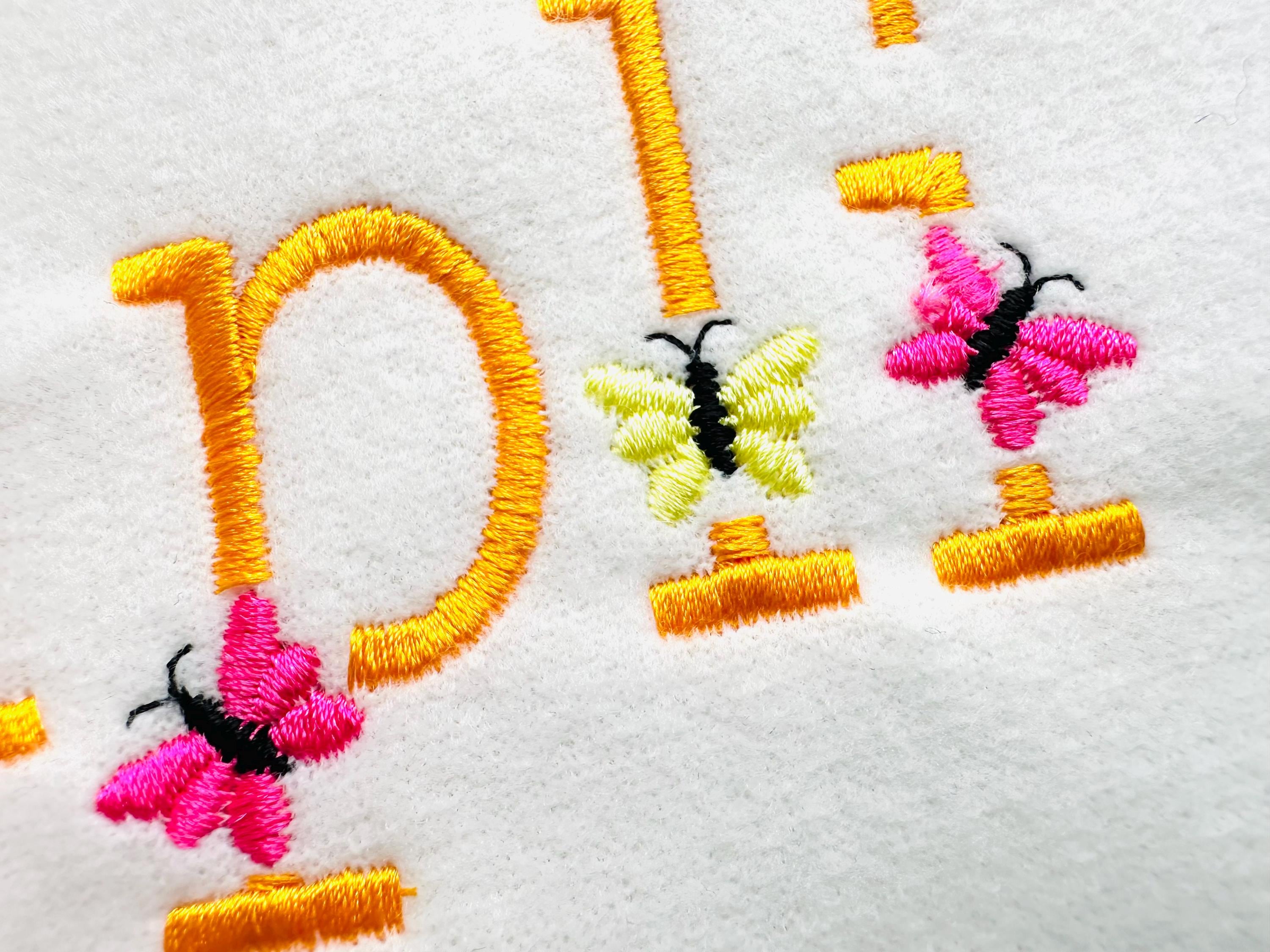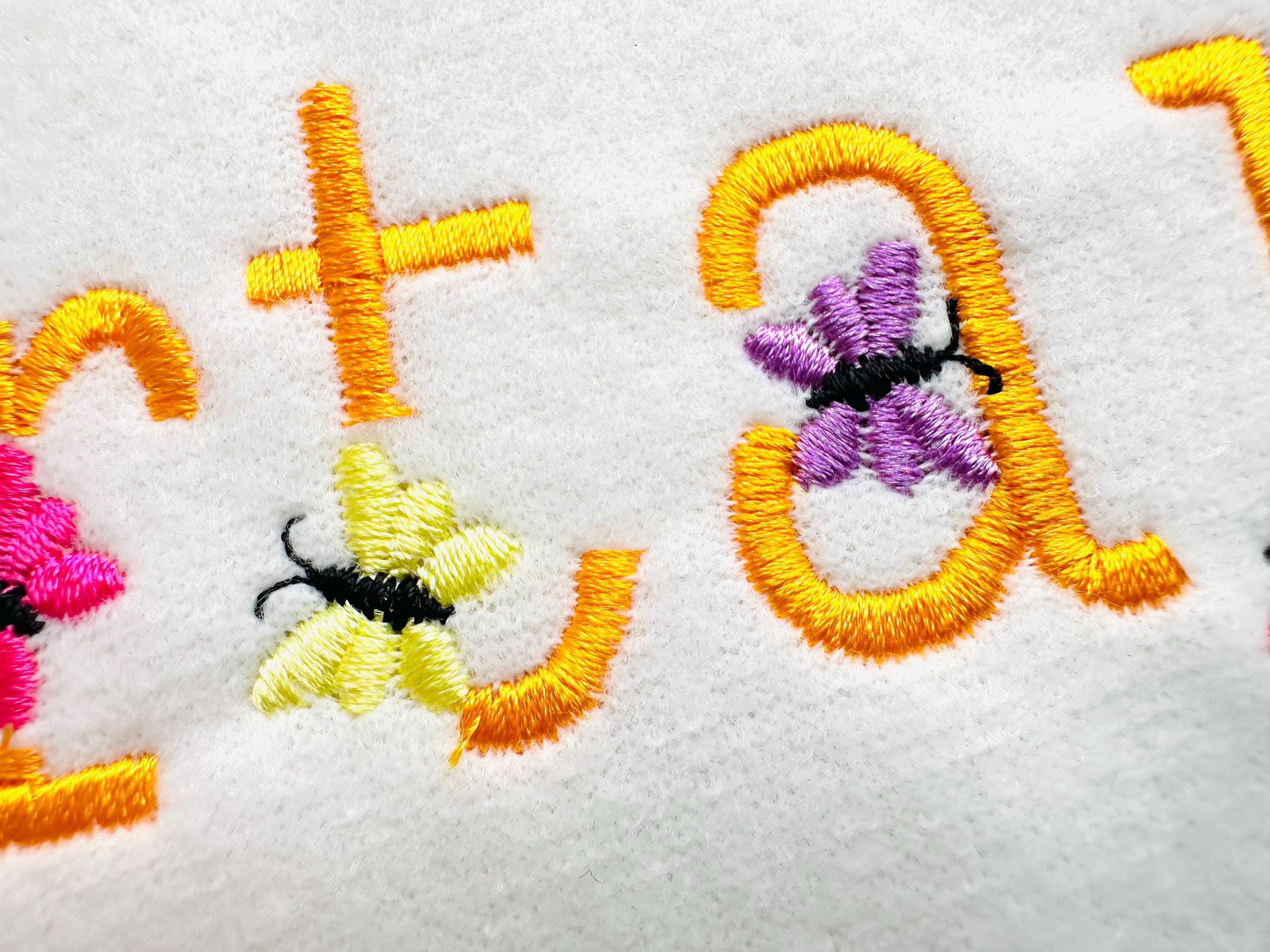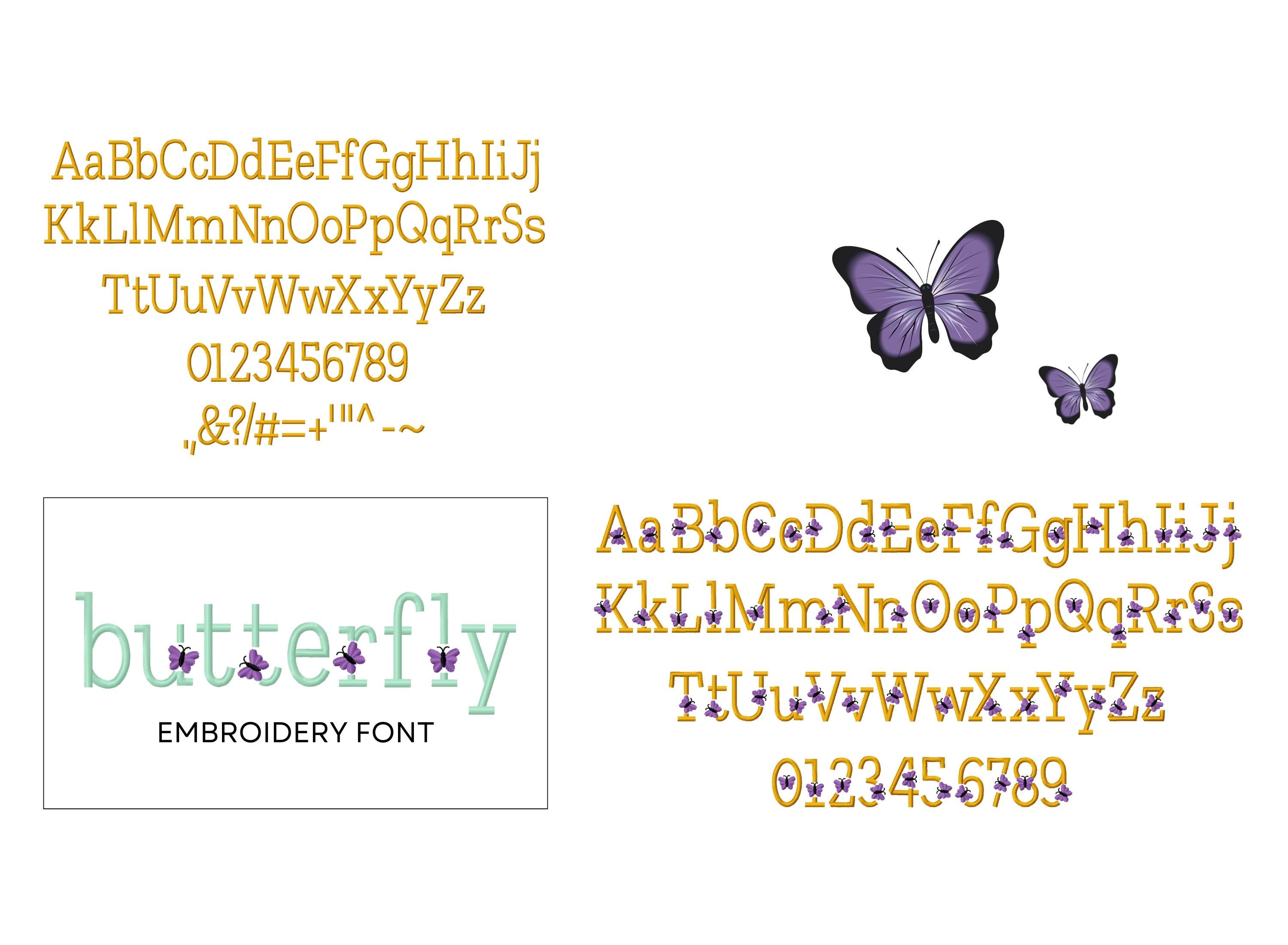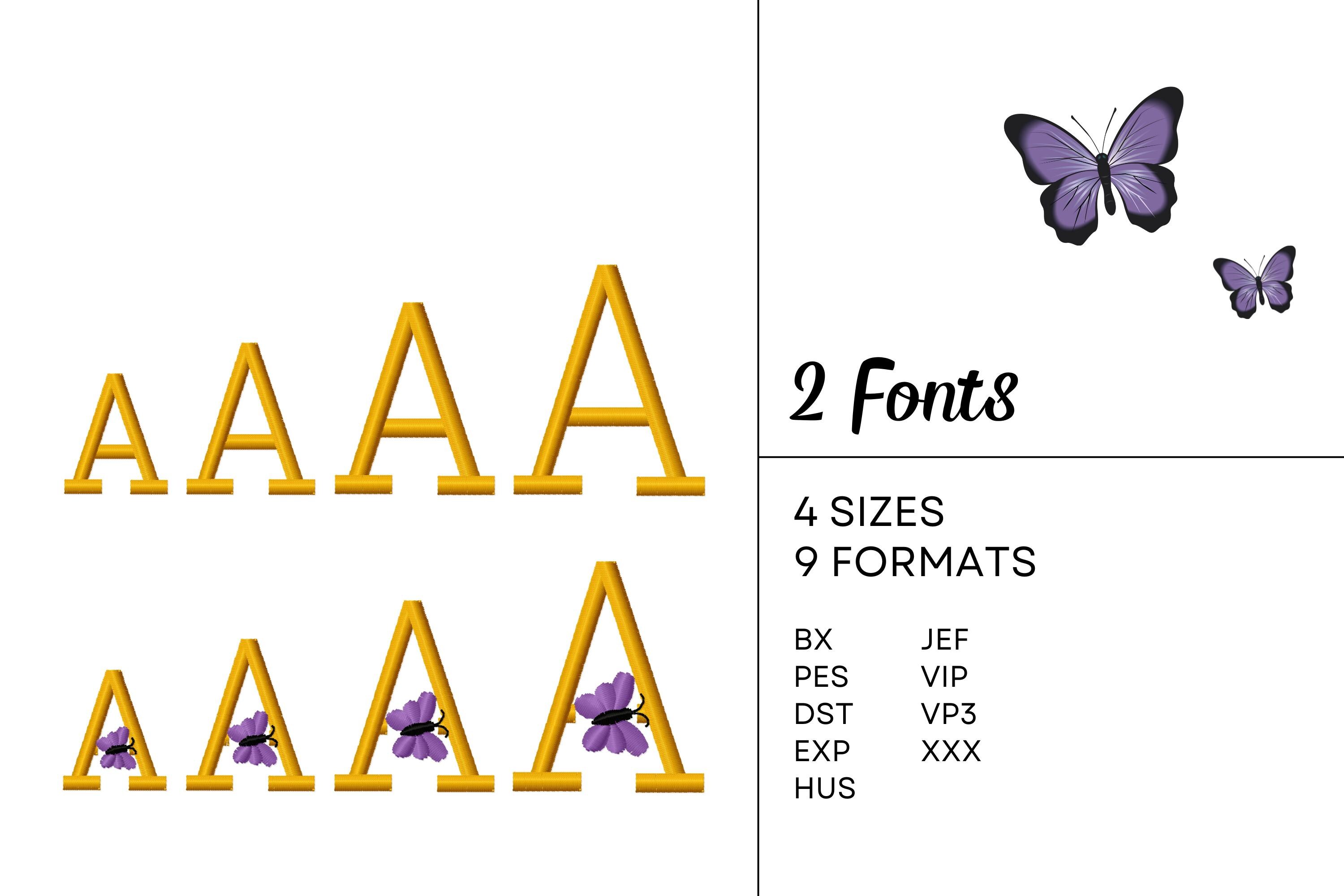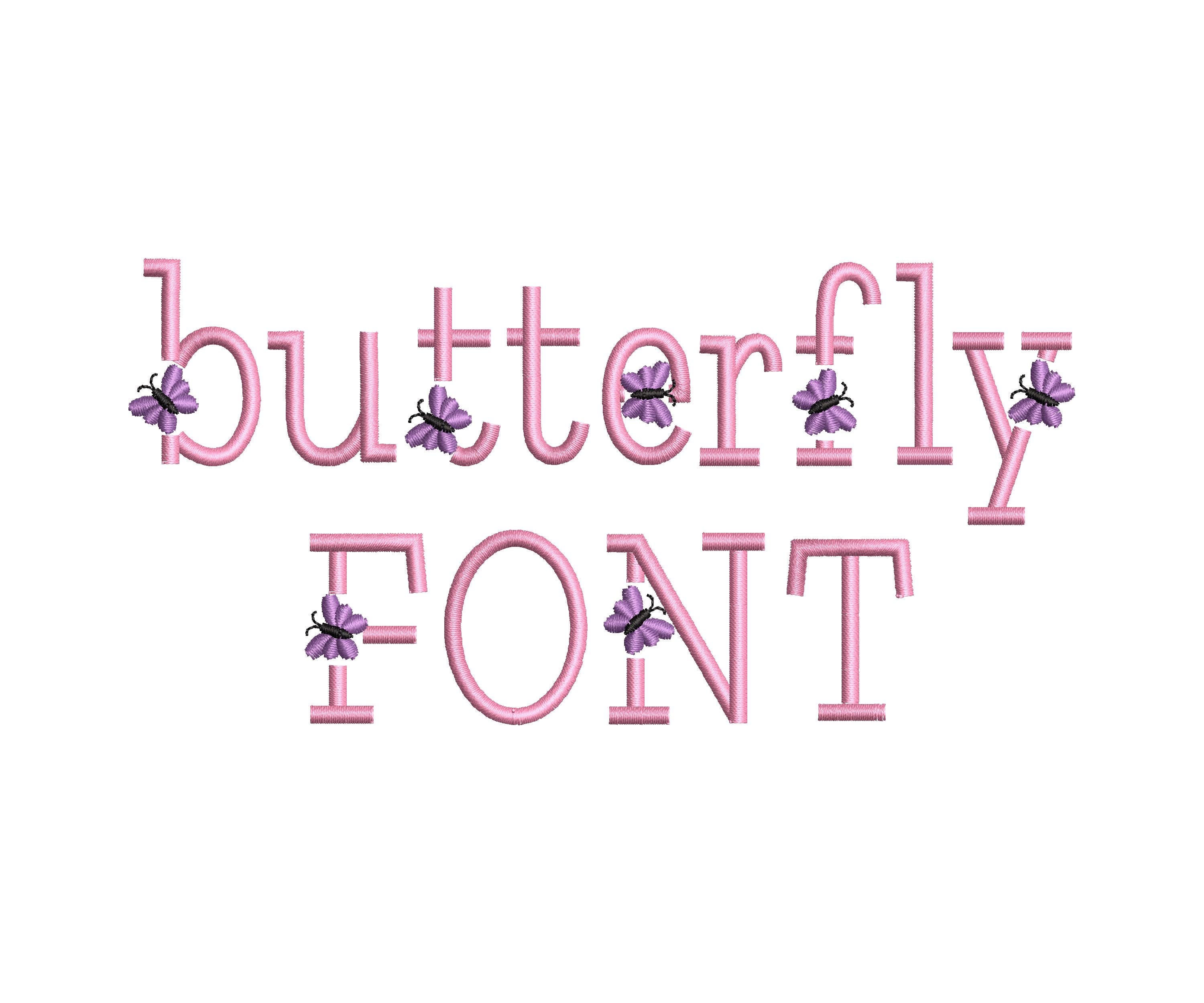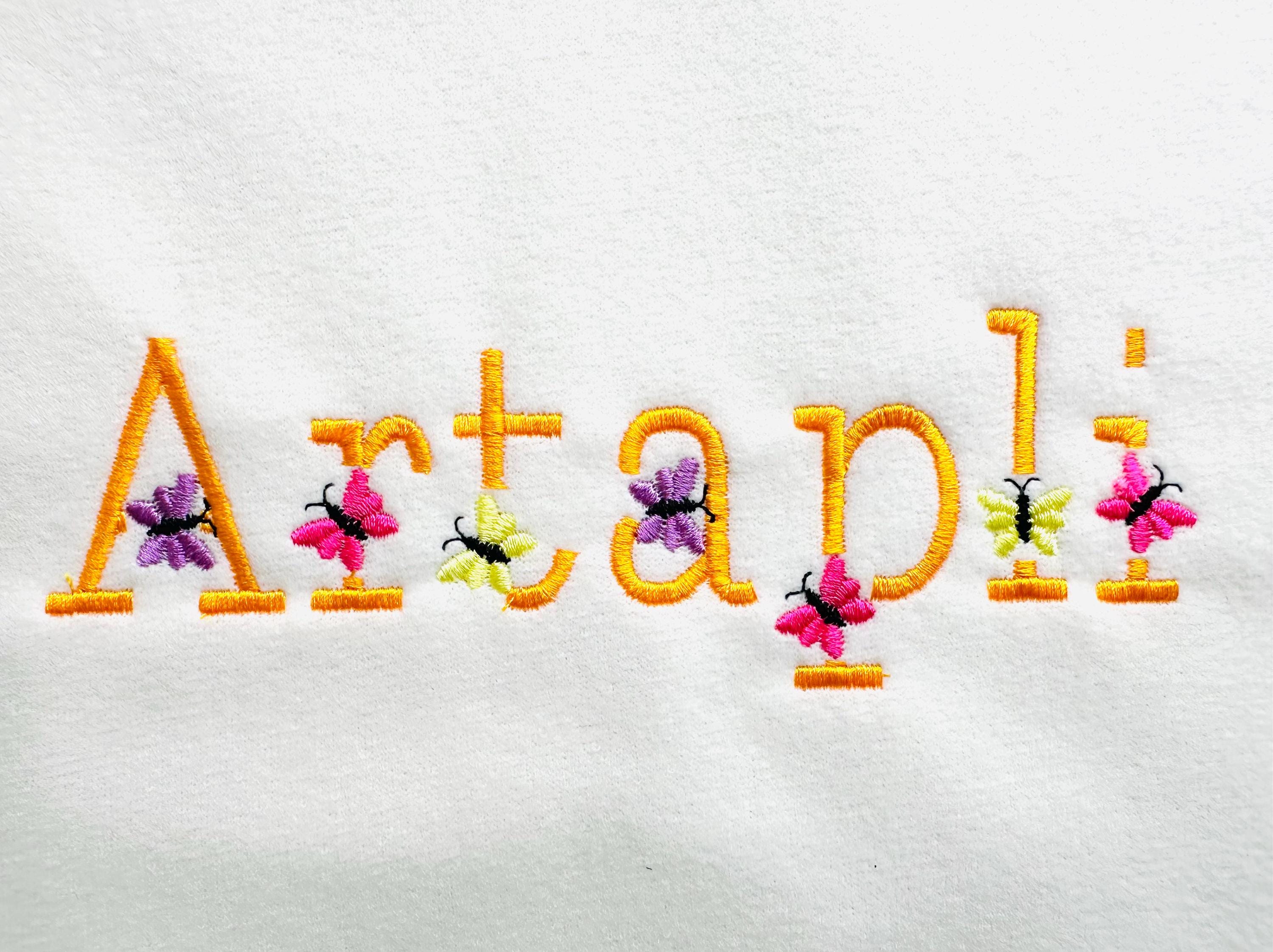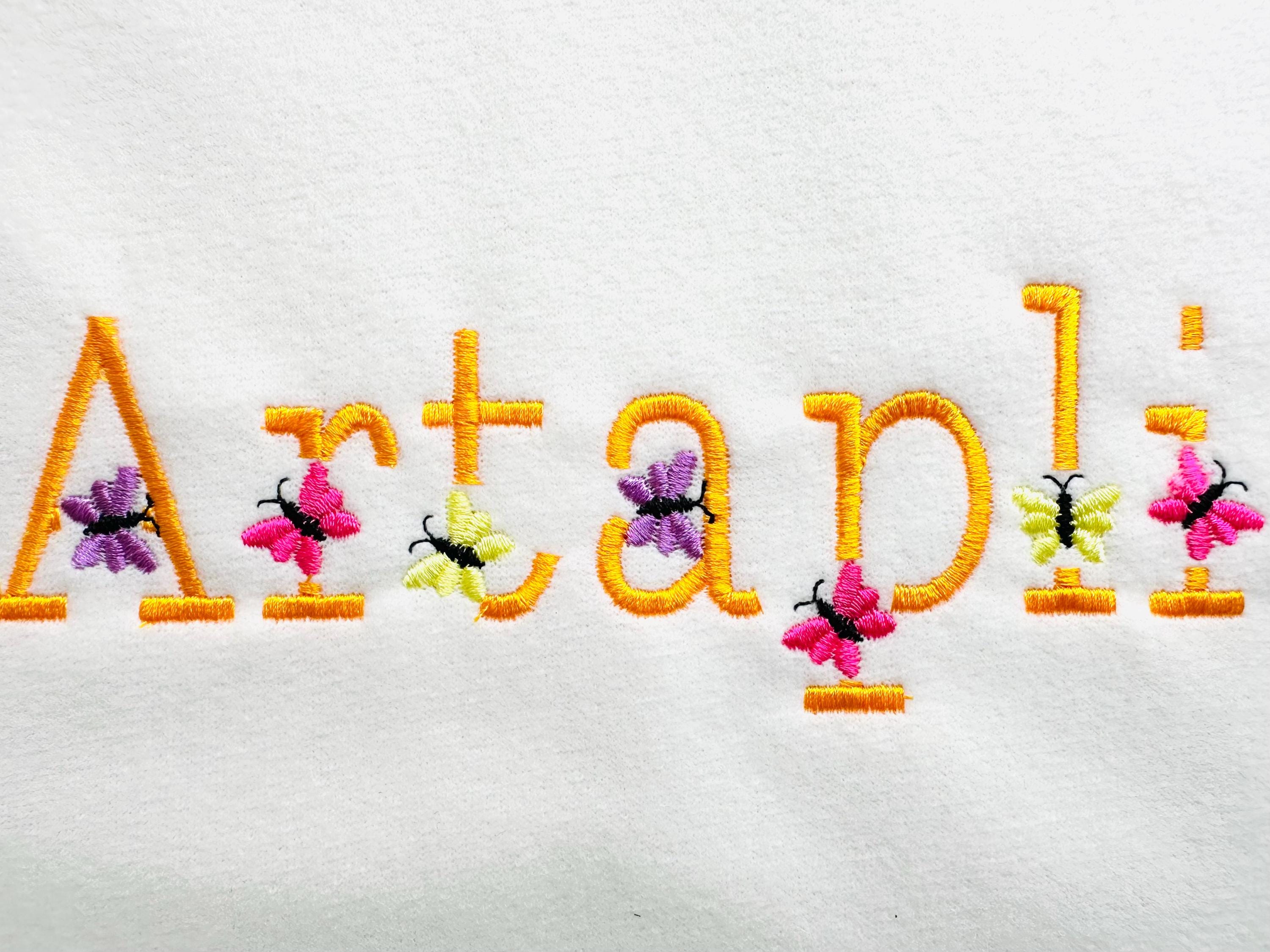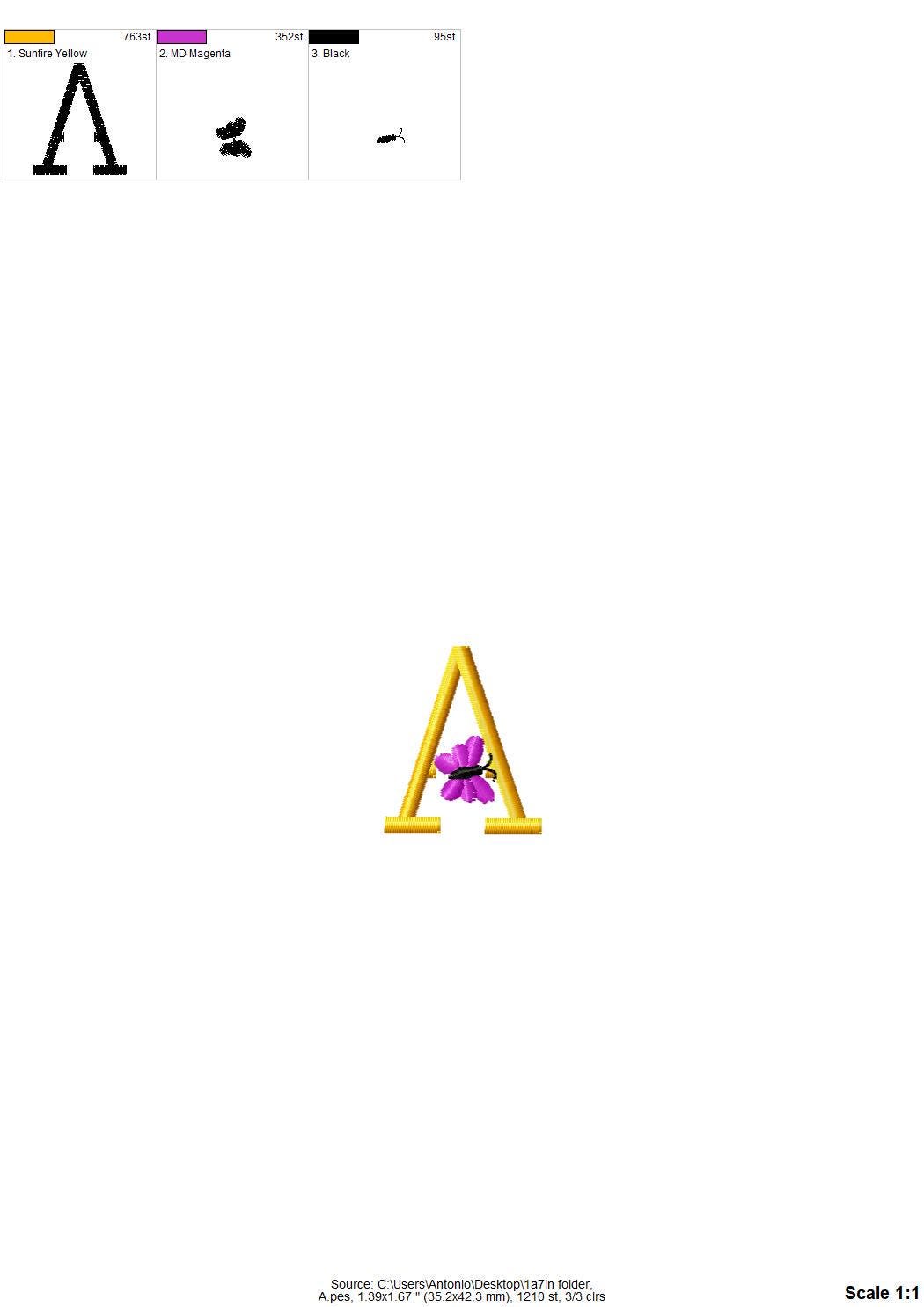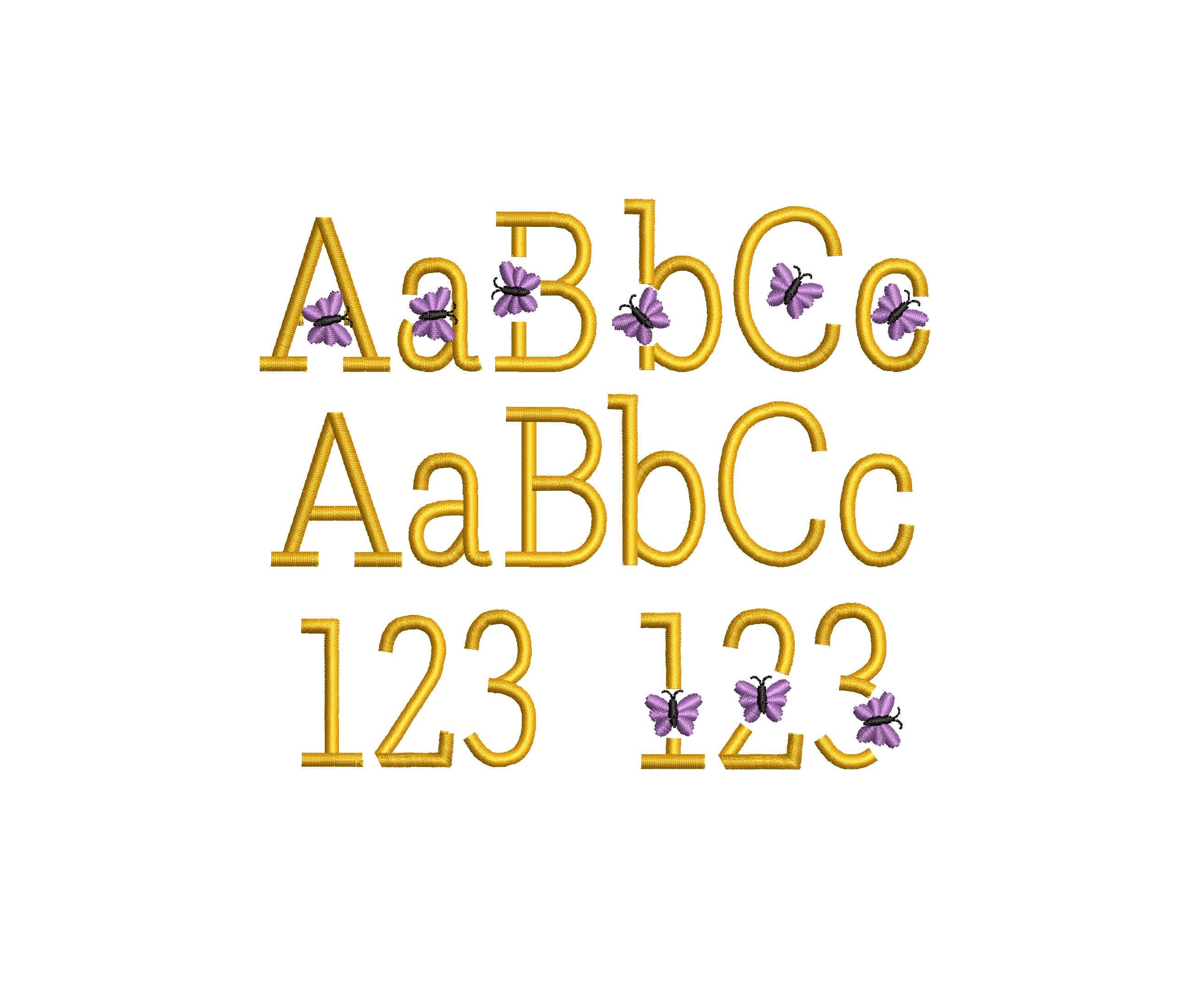
Satin stitch mini Butterfly Font SET of 2 types Alphabet letters little girls kids Monogram machine embroidery designs sizes 1 up to 2 inch
Included 2 fonts:
* plain font whole alphabet: uppercase and lowercase letters, numbers, and punctuation
* butterfly font: uppercase and lowercase letters, and numbers.